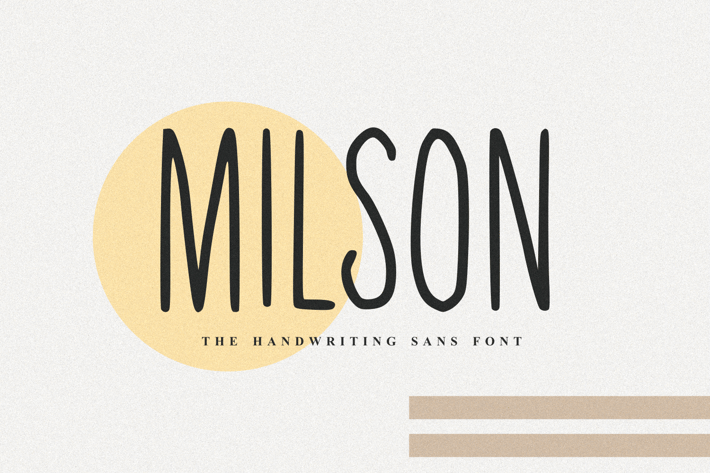
Milson - The Handwriting Sans Font
Milson - The Handwriting Sans Font, every single letter has been carefully crafted to make your text looks beautiful. it's perfect for logos, name cards, magazine layouts, invitations, headers, or even large-scale artwork.
- Milson - The Handwritten Sans serif font including upper & lowercase characters, numerals and more of symbols.
- Included Italic Version
- Multilingual support for various languages